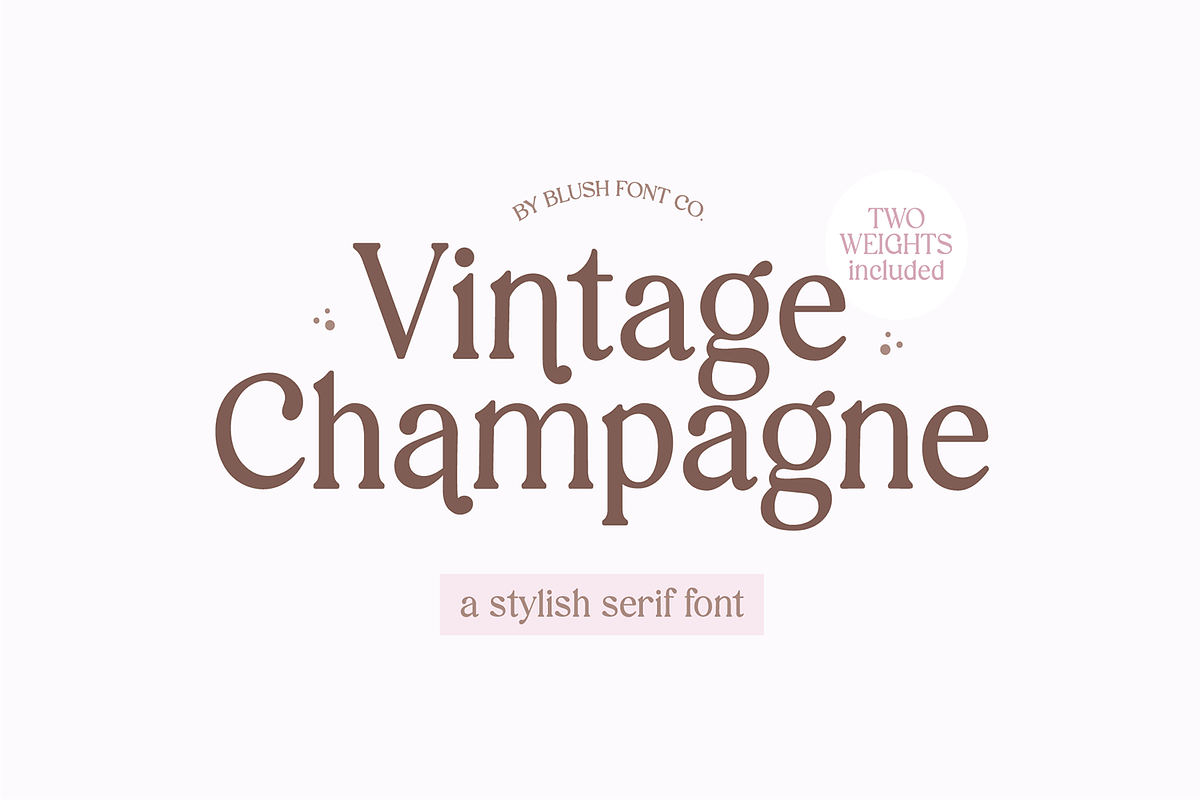
VINTAGE CHAMPAGNE Modern Serif Font Free Download
VINTAGE CHAMPAGNE Modern Serif Font Free Download is an elegant and refined typeface that combines vintage charm with a contemporary serif design. Perfect for luxury branding, logos, invitations, and high-end editorial projects, this font offers a sophisticated touch to any design. With its sharp serifs and clean lines, VINTAGE CHAMPAGNE brings a timeless appeal to your creative work.